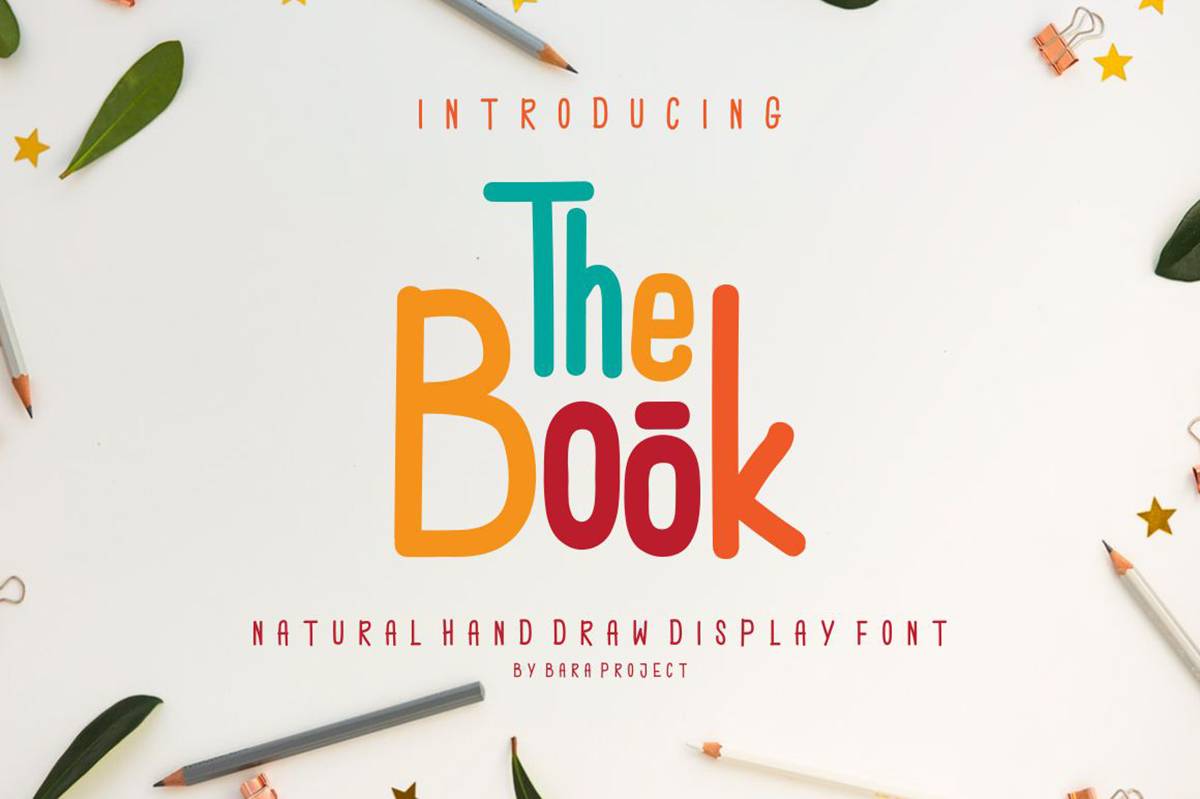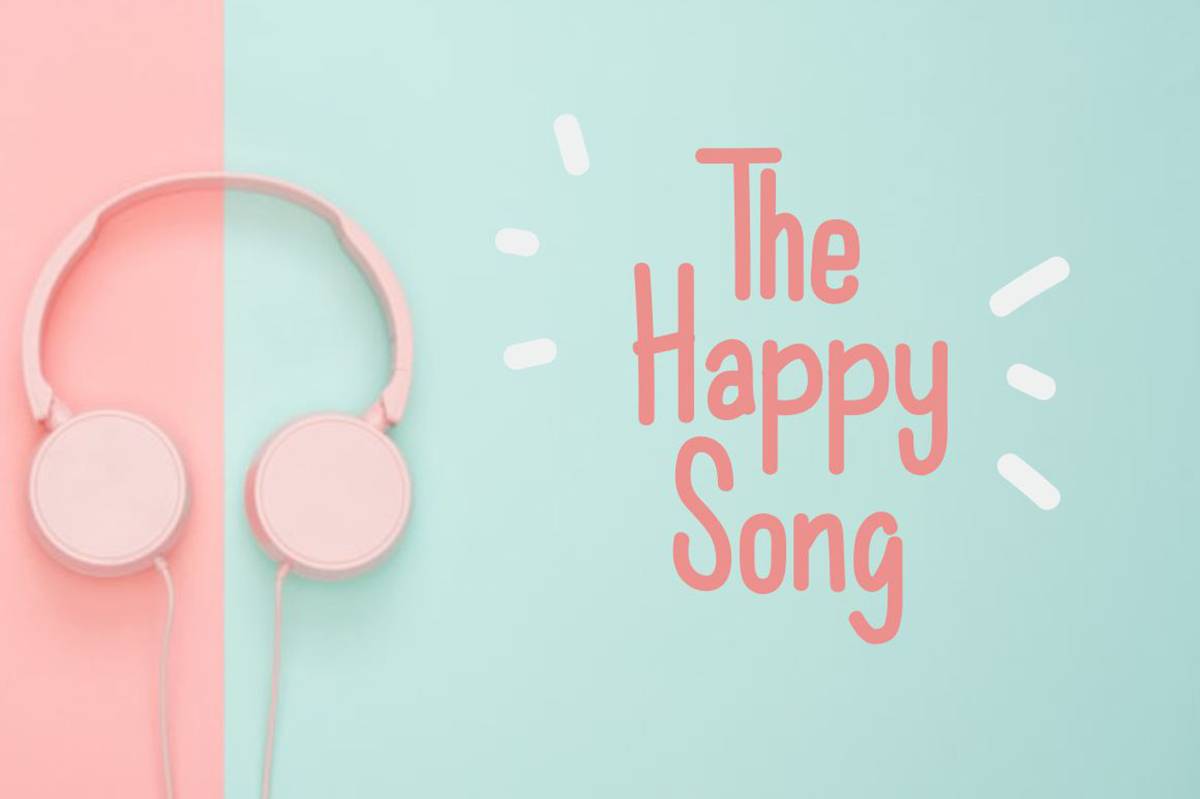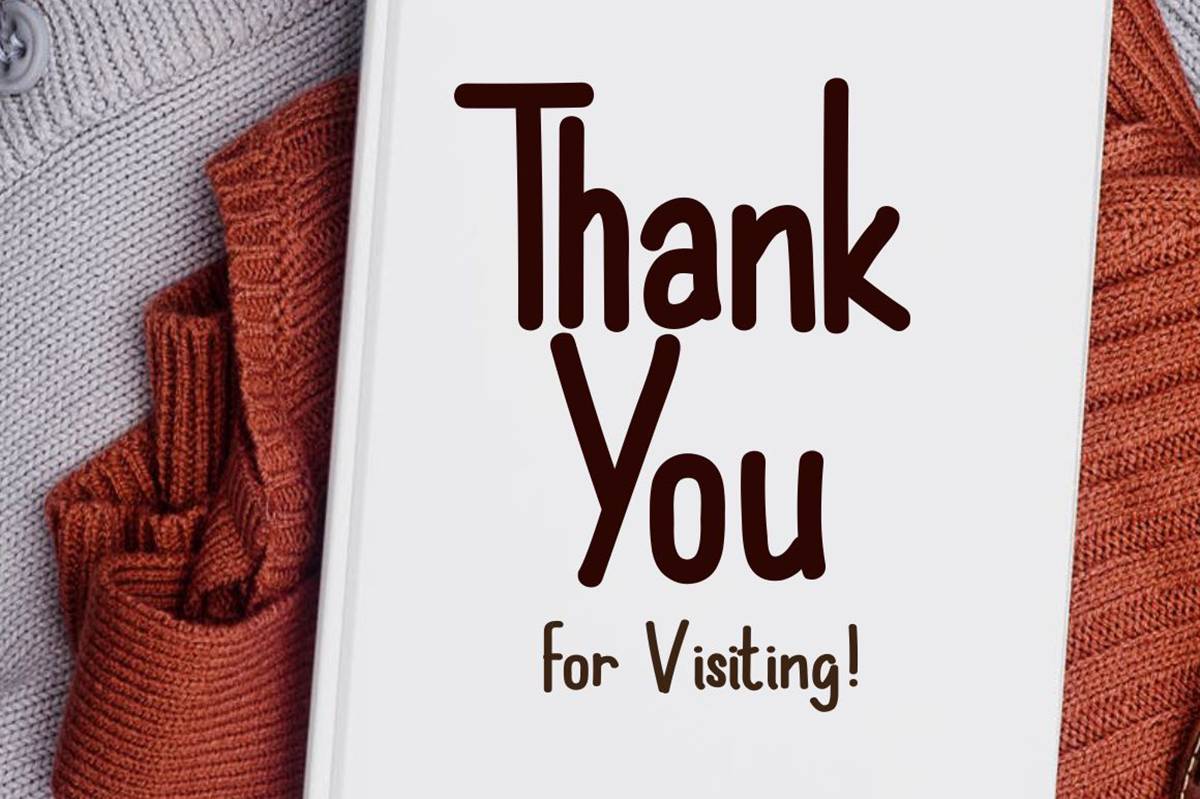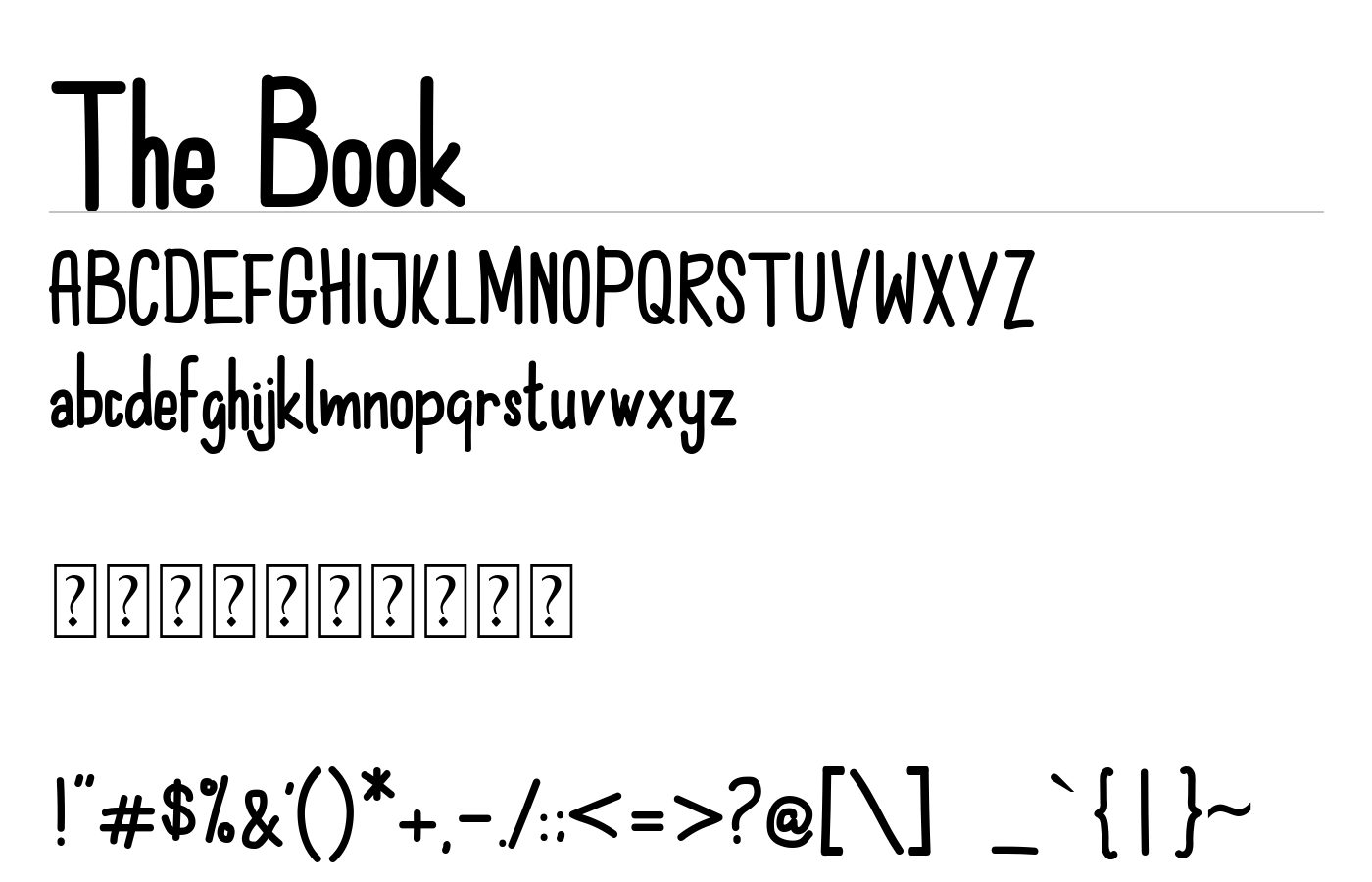
The Book Font is a playful and casual sans serif typeface featuring tall, narrow letterforms with a light to regular weight and a hand-drawn feel. Its uneven strokes and quirky character shapes make it perfect for informal, creative projects like children's books, greeting cards, or fun branding, where a friendly and approachable vibe is desired. This font works well in headlines and short texts that benefit from a charming and whimsical touch.
The Book Font